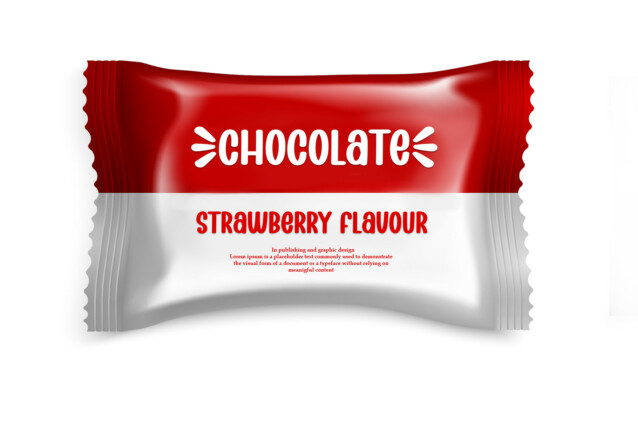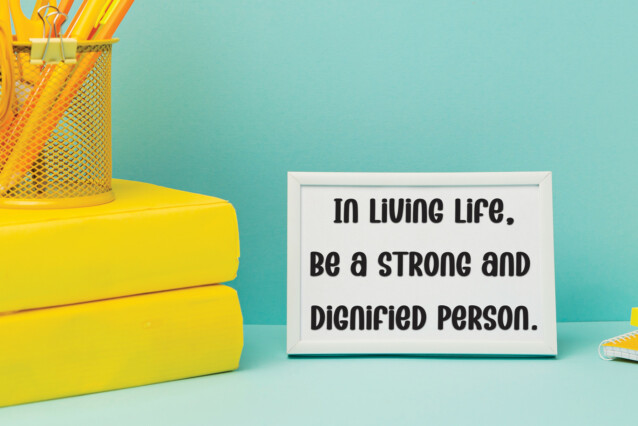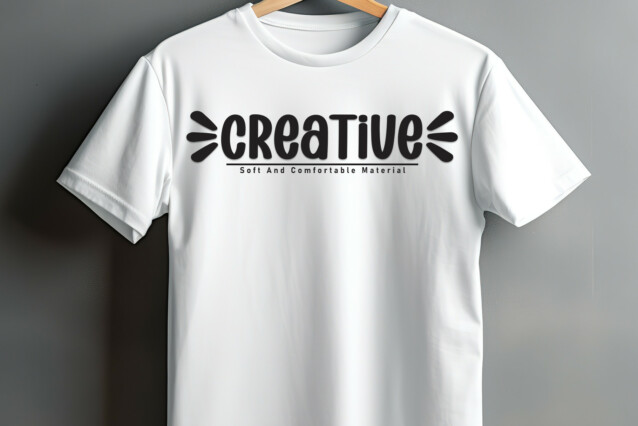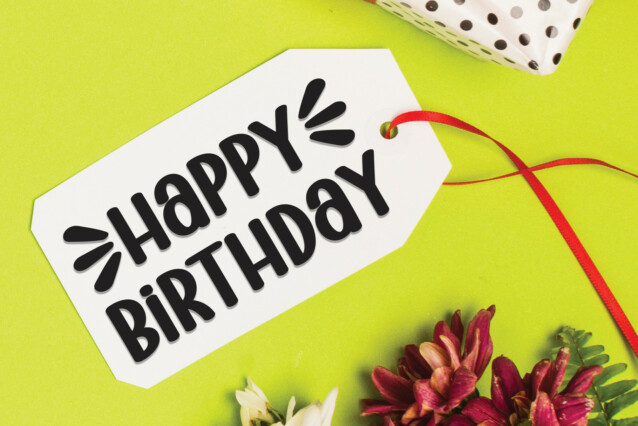
Cheerfully Display Font
Cheerfully Display Font is a neat and beautiful handwritten font described by an elegant touch, perfect for your favorite projects. Fall in love with its incredibly distinct and timeless style, and use it to create spectacular designs!